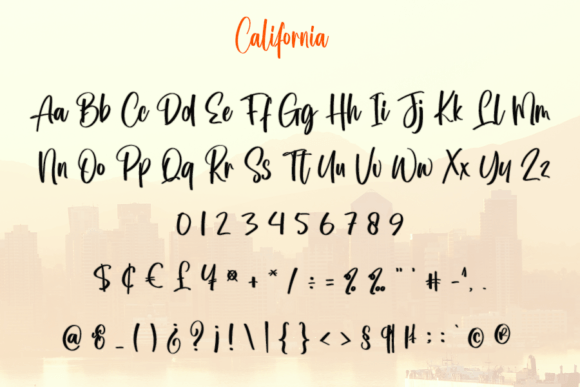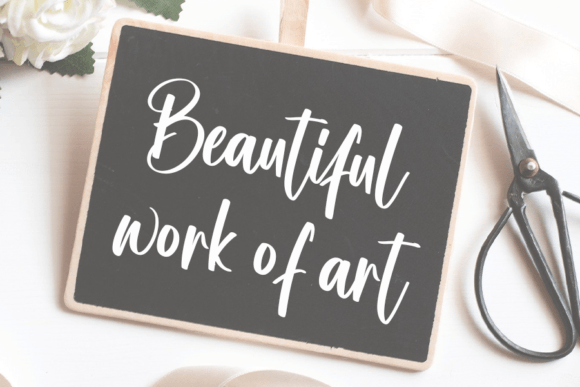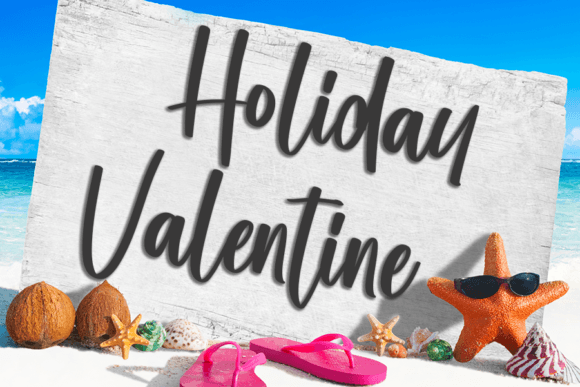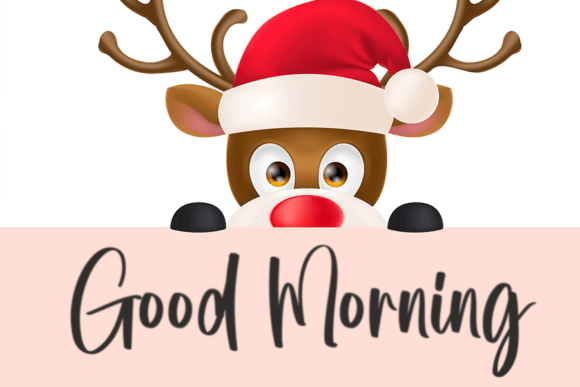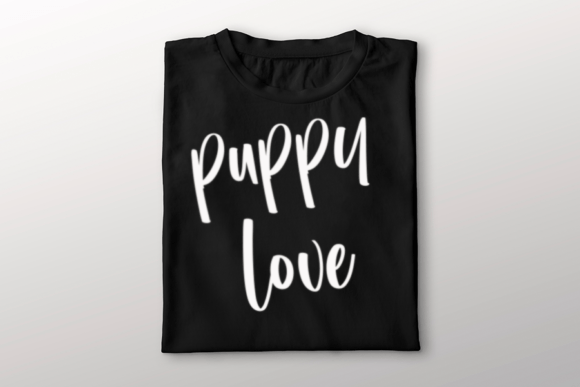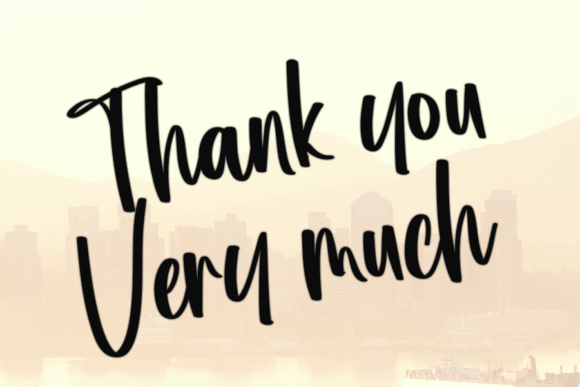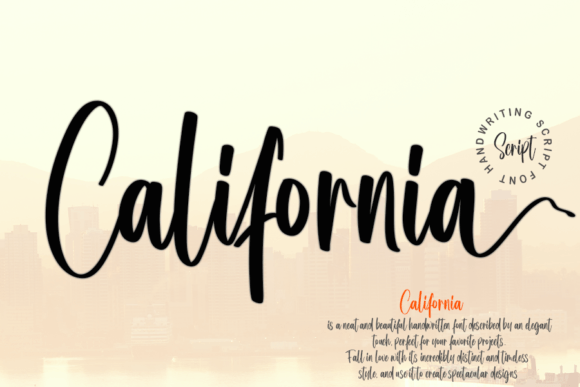
Introducing California Font: Elevate Your Designs with Elegance and Class
Are you a designer or crafter looking for a font that exudes sophistication and style? Look no further than California Font, a trendy handwritten font that brings a contemporary atmosphere and impeccable form to your design projects. Inspired by timeless classic calligraphy, California Font is the perfect choice for those seeking to add a touch of elegance and class to their work.
The Inspiration Behind California Font
California Font draws inspiration from the world of classic calligraphy, where the art of beautiful handwriting has been perfected over centuries. The font’s creators sought to capture the essence of this timeless art form and infuse it with a modern twist, making it perfect for contemporary design projects. The result is a font that is both nostalgic and fresh, with a unique character that sets it apart from more traditional fonts.
Key Features of California Font
So, what makes California Font so special? Here are just a few of its key features:
- Trendy and Handwritten: California Font has a distinctly handwritten feel, giving it a personal and approachable touch that’s perfect for designs that need a human touch.
- Contemporary Atmosphere: Despite its classic inspiration, California Font has a distinctly modern feel that makes it perfect for contemporary design projects.
- Impeccable Form: The font’s creators have paid close attention to detail, ensuring that every letter and character is perfectly formed and balanced.
- Elegant and Classy: California Font is the epitome of elegance and class, making it perfect for designs that need to convey sophistication and style.
Uses for California Font
So, what can you use California Font for? The possibilities are endless! Here are just a few ideas to get you started:
- Branding and Logo Design: California Font is perfect for creating elegant and sophisticated brand identities that will help your business stand out.
- Wedding and Event Design: The font’s elegant and classy feel makes it perfect for wedding invitations, programs, and other event materials.
- Packaging Design: California Font is a great choice for packaging design, adding a touch of sophistication and style to your product’s label or packaging.
- Graphic Design: The font’s versatility makes it perfect for a wide range of graphic design projects, from brochures and flyers to posters and banners.
Why Choose California Font?
With so many fonts to choose from, why should you choose California Font? Here are just a few reasons:
- Unique and Distinctive: California Font has a unique character that sets it apart from more traditional fonts.
- High-Quality Design: The font has been carefully crafted to ensure that every letter and character is perfectly formed and balanced.
- Easy to Read: Despite its elegant and classy feel, California Font is easy to read and understand, making it perfect for designs that need to communicate a message.
- Versatile: The font’s versatility makes it perfect for a wide range of design projects, from branding and logo design to packaging and graphic design.
In conclusion, California Font is a trendy handwritten font that brings a contemporary atmosphere and impeccable form to your design projects. Inspired by timeless classic calligraphy, it’s the perfect choice for designers and crafters seeking to add elegance and class to their work. With its unique character, high-quality design, and versatility, California Font is sure to become a favorite in your design arsenal.